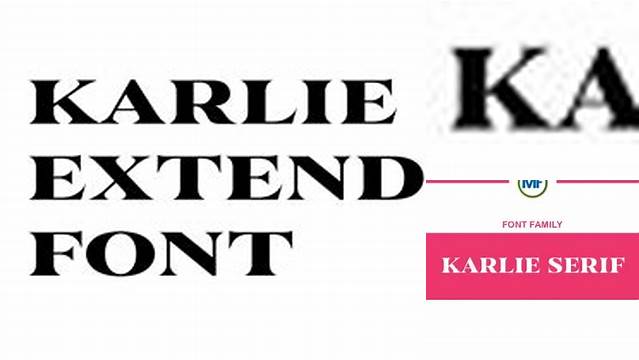
What is Karlie Serif?
Before we jump into the download details, let's talk about what makes Karlie Serif so special. This font is a modern serif that blends classic elegance with a contemporary feel. It’s super versatile, making it perfect for everything from branding to editorial design. The clean lines and balanced letterforms ensure readability while adding a touch of sophistication. Whether you're working on a website, a logo, or a print project, Karlie Serif can elevate your designs. The font's sophisticated appearance lends itself to various creative applications, making it an excellent choice for designers looking to create a polished and professional look. With its balanced letterforms and clean lines, Karlie Serif is designed to be both aesthetically pleasing and highly functional. Its adaptability ensures that it enhances rather than distracts from the overall message of your design. So, if you're looking for a font that combines modern appeal with timeless elegance, Karlie Serif might just be the perfect fit for your next project. Its availability for free download makes it an accessible option for designers of all levels, from students to seasoned professionals.
Karlie Serif Regular Features
One of the things that makes Karlie Serif Regular stand out is its range of features. It typically includes uppercase and lowercase letters, numbers, punctuation, and often, a selection of special characters. The consistent weight and spacing in the regular style ensure a smooth reading experience. Plus, many versions of Karlie Serif come with ligatures and alternates, giving you even more creative control. These features allow designers to create visually interesting and unique typography. Ligatures, for example, combine two or more characters into a single glyph, which can improve the flow and appearance of certain letter combinations. Alternates provide different stylistic options for individual characters, giving designers the flexibility to fine-tune their typography and achieve the desired aesthetic. The inclusion of these features enhances the versatility of Karlie Serif Regular, making it suitable for a wide range of design applications. Whether you're working on a logo, a website, or a print project, these features can help you create a polished and professional look. With its comprehensive character set and stylistic options, Karlie Serif Regular is a valuable addition to any designer's toolkit.
Using Karlie Serif in Graphic Design
Karlie Serif is a fantastic choice for graphic design projects. Its classic yet modern look makes it suitable for a wide range of applications. Use it for headings, body text, logos, and branding materials. It pairs well with both sans-serif and other serif fonts, giving you plenty of flexibility in your designs. Whether you're creating a minimalist design or something more elaborate, Karlie Serif can add a touch of elegance and sophistication. Its clean lines and balanced letterforms ensure readability, making it a practical choice for both print and digital media. In addition to its aesthetic appeal, Karlie Serif is also highly versatile in terms of its technical capabilities. It typically includes a range of weights and styles, allowing you to create visual hierarchy and add emphasis to your designs. Its compatibility with various design software and platforms makes it a convenient choice for designers working across different mediums. Whether you're a seasoned professional or just starting out, Karlie Serif is a valuable addition to your font library. Its timeless appeal and versatility make it a reliable choice for a wide range of graphic design projects. So, why not give it a try and see how it can elevate your designs?
Using Karlie Serif in Web Design
In web design, Karlie Serif can bring a touch of sophistication to your site. Use it for headings to grab attention or for body text to improve readability. Just make sure to optimize the font for web use to ensure fast loading times. Tools like Font Squirrel's Webfont Generator can help with this. Also, consider using CSS to control the font's appearance and ensure it looks great on different devices. When using Karlie Serif for headings, consider pairing it with a sans-serif font for the body text to create a visual contrast and improve readability. This can help make your website more visually appealing and easier to navigate. In addition to its aesthetic appeal, Karlie Serif is also highly functional in web design. Its clear and legible letterforms ensure that your content is easy to read, even on smaller screens. Its compatibility with various web browsers and devices makes it a reliable choice for ensuring a consistent user experience. By carefully considering the font's size, weight, and spacing, you can create a visually appealing and user-friendly website that effectively communicates your message. So, whether you're designing a blog, an e-commerce site, or a portfolio, Karlie Serif can help you create a professional and polished look.
Pairing Karlie Serif with Other Fonts
One of the keys to great typography is pairing fonts effectively. Karlie Serif works well with a variety of other fonts. For a classic look, pair it with a clean sans-serif like Open Sans or Lato. For a more modern feel, try pairing it with Montserrat or Raleway. Experiment with different combinations to find what works best for your project. When pairing fonts, it's important to consider the overall tone and style of your design. If you're aiming for a sophisticated and elegant look, consider pairing Karlie Serif with a complementary serif font that has a similar weight and style. If you're aiming for a more modern and minimalist look, pairing it with a clean and geometric sans-serif font can create a striking contrast. Experimenting with different font combinations can help you create a unique and visually appealing design that effectively communicates your message. In addition to considering the aesthetic compatibility of the fonts, it's also important to consider their technical compatibility. Make sure that the fonts you choose are compatible with the platforms and devices on which your design will be viewed. This can help ensure that your design looks consistent and professional across different environments. So, take the time to experiment with different font pairings and find what works best for your project. With a little bit of creativity and attention to detail, you can create a visually stunning design that effectively communicates your message.